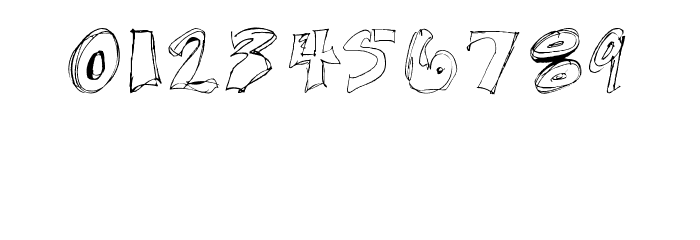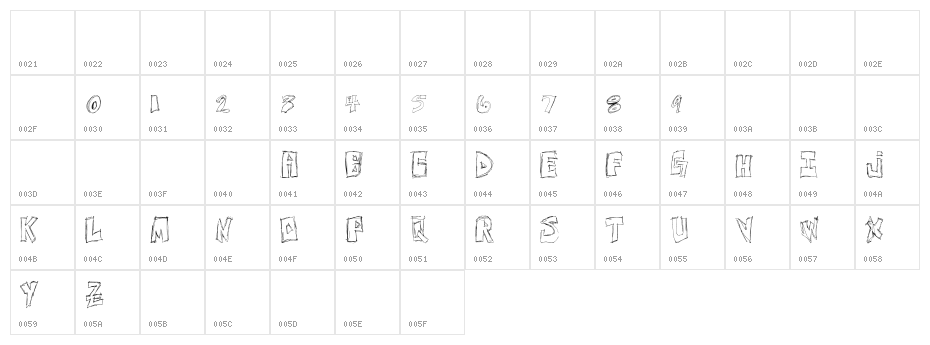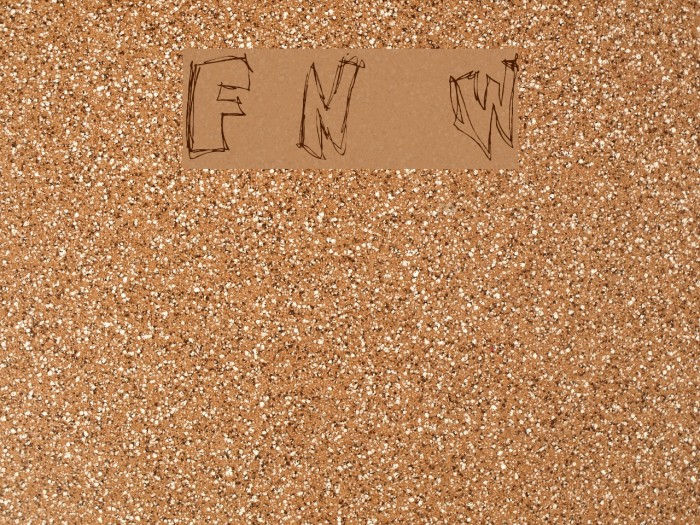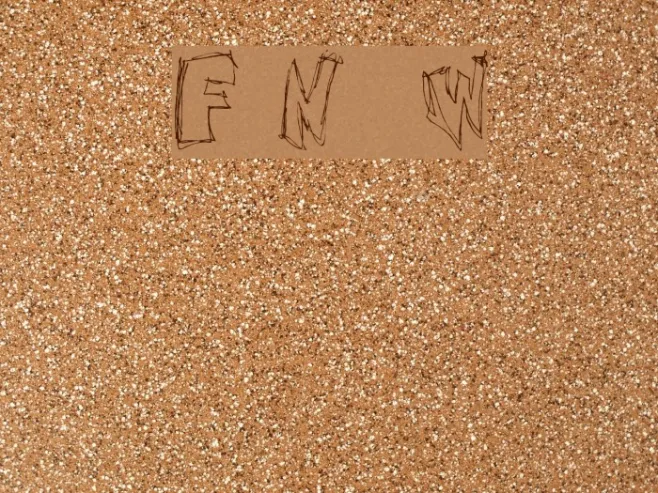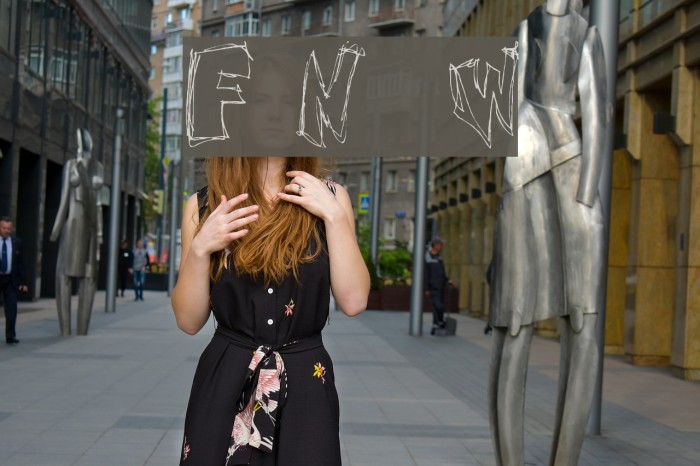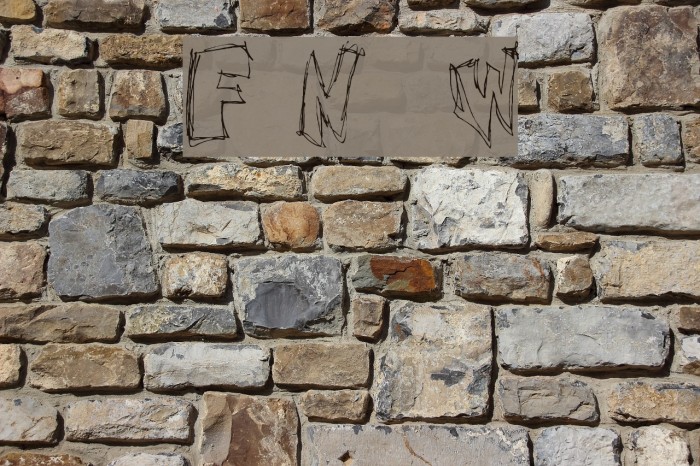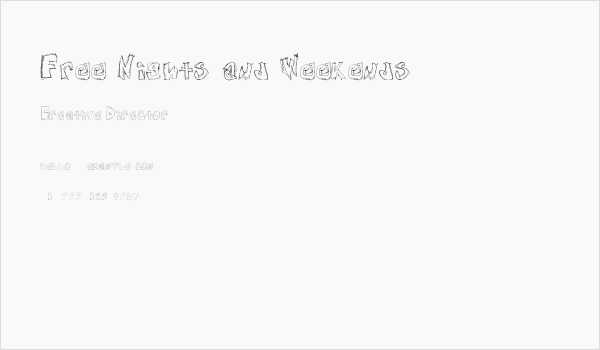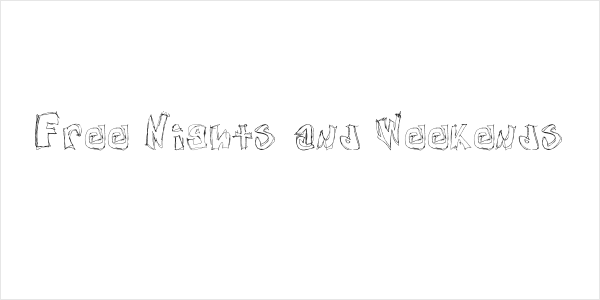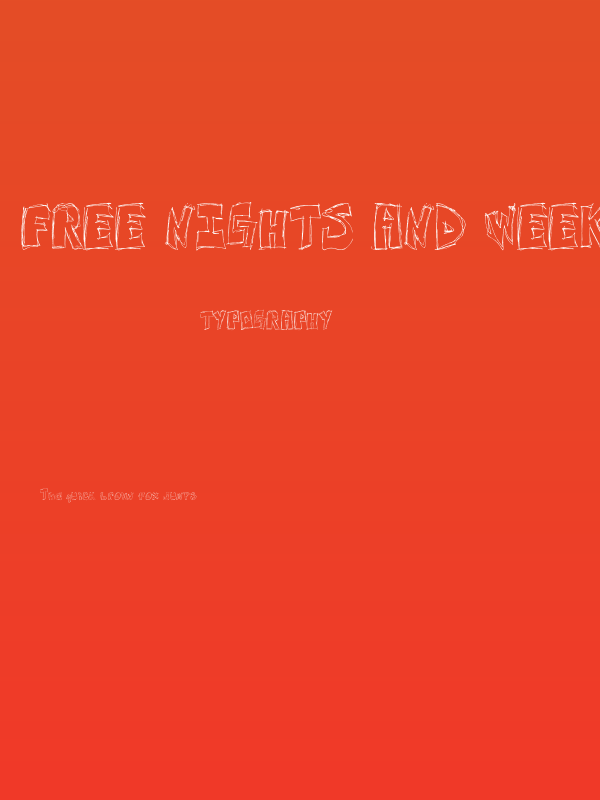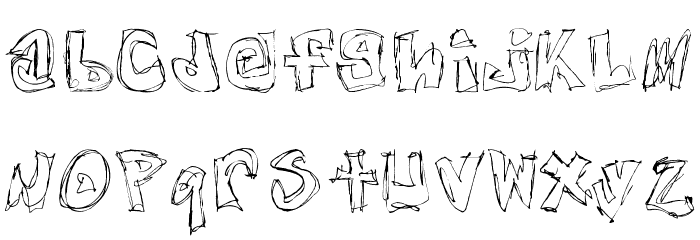
Free Nights and Weekends Font
Free Nights and Weekends Description
This font features a bold, hand-drawn style with a sketch-like appearance. Each character is uniquely crafted with uneven lines and a playful, artistic flair. The uppercase and lowercase letters maintain a consistent, whimsical design that adds a sense of movement and energy. Numbers and special characters follow the same artistic theme, making the font suitable for creative and informal projects. The irregular strokes and varied line thicknesses give it a dynamic and lively feel, perfect for capturing attention and adding a personal touch to any design.
Proposed ProjectsIdeal for posters, children's books, comic strips, and creative branding projects.